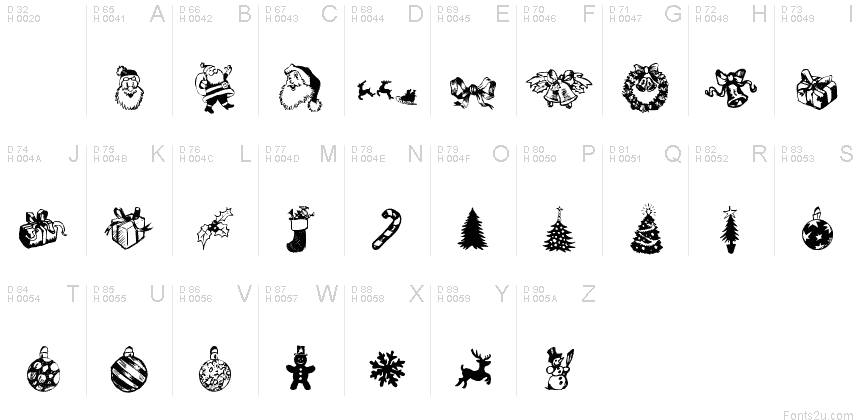
Xmas Doods by Imagex is a free cartoon Christmas dingbat font filled with hand-drawn bells, Santa, stockings, ornaments, trees, wreaths, and bows. The broad black shapes, scratchy hatching, and uneven outlines give the collection the lively look of quick holiday sketches.
Seasonal retailers and family events can use it for gift packaging, party invitations, classroom posters, and social graphics. The symbols can form pictorial badges, decorative borders, or festive emblems.
Xmas Doods by Imagex is a free Christmas symbol font.